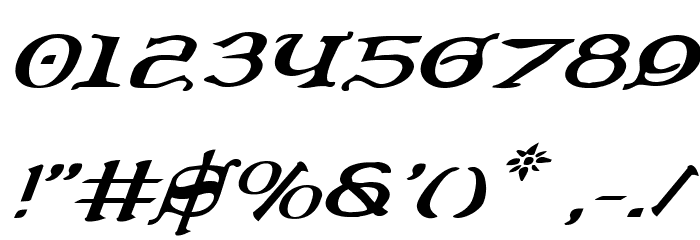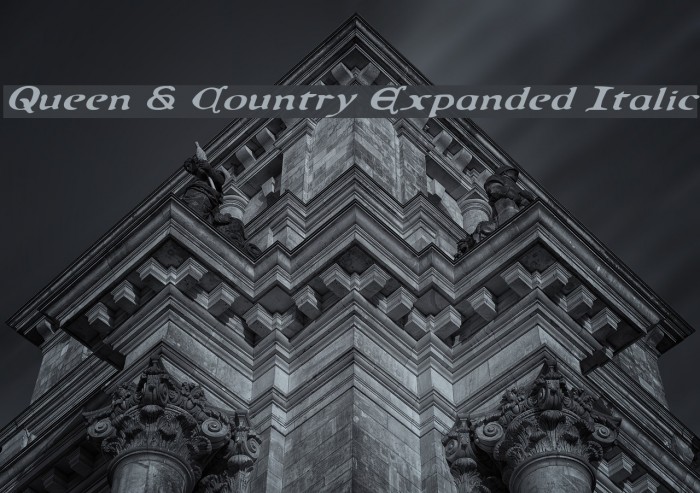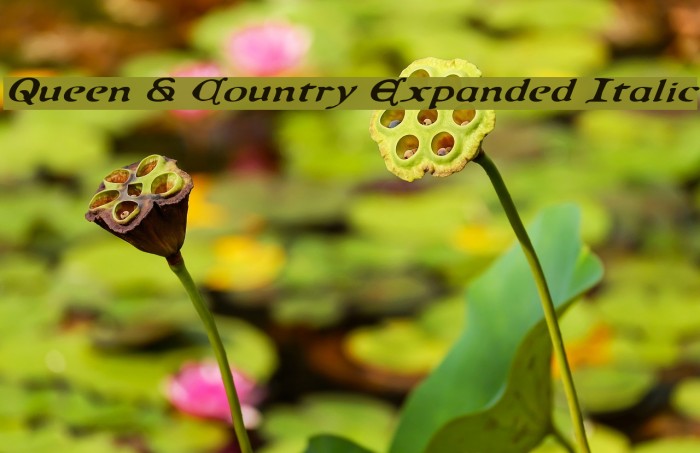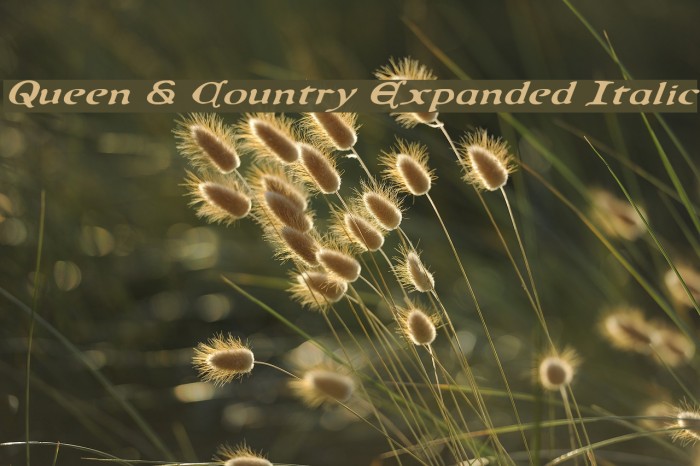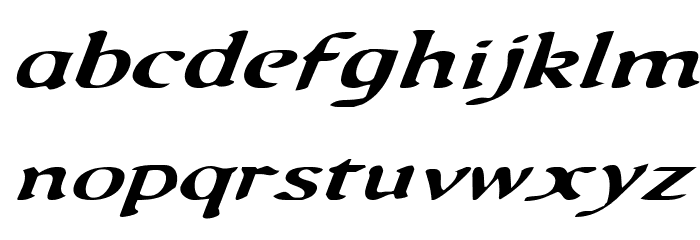
Queen & Country Expanded Italic Font
Queen & Country Expanded Italic Description
This font exhibits a bold and dynamic style with a distinct italic slant, giving it a sense of movement and elegance. The characters are expanded, providing a wide appearance that enhances readability while maintaining a decorative flair. The strokes are thick and consistent, contributing to a strong visual impact. Each letter features unique serifs and curves, adding a touch of sophistication and classic charm. The numbers and special characters are designed with the same attention to detail, ensuring a cohesive look across all elements. This font is well-suited for projects that require a blend of traditional and modern aesthetics.
| Proposed Projects | Ideal for branding, headlines, posters, and invitations where a strong, elegant presence is desired. |